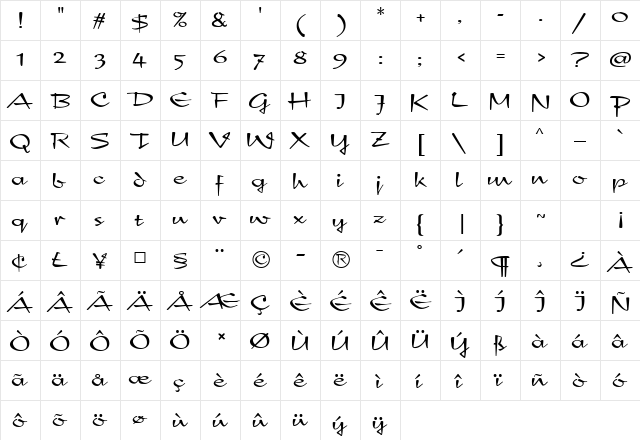
New Day MF Script
| Style | Script |
New Day MF brings a calligraphic fluidity to the page — its connecting strokes and expressive curves give it an unmistakably human quality.